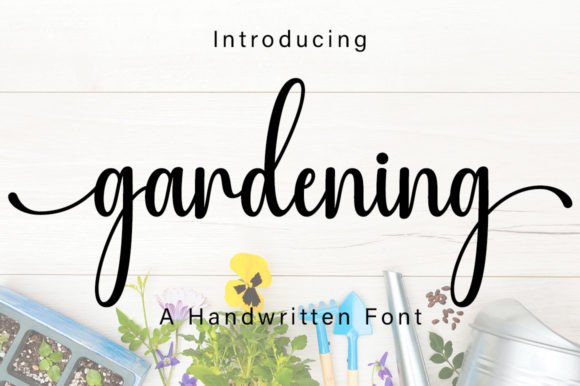
Unleash your creative spirit with Gardening Font, a script typeface that captures the essence of grace and elegance. Its delicate strokes, reminiscent of a calligrapher's pen, weave a tapestry of beauty, inviting you to embark on a whimsical journey through the world of typography.
Immerse yourself in the enchanting realm of handwritten artistry as Gardening Font takes you on a voyage of self-expression. Its timeless style transcends trends, ensuring your designs remain captivating and alluring for years to come. With Gardening Font, you hold the key to unlocking a world of creative possibilities.
Picture your words adorned with the whimsical charm of Gardening Font, as they dance across the page like a gentle breeze rustling through leaves. Its flowing lines emulate the movement of a dancer, adding a touch of dynamism to your designs. Let your imagination flourish as you explore the endless possibilities that await.
Gardning Font's versatility knows no bounds, effortlessly adapting to various design projects. Whether you're crafting logos, branding materials, invitations, or social media graphics, this font will serve as your trusty companion, transforming your ideas into stunning realities. Its PUA encoding makes accessing glyphs and ligatures a seamless experience, allowing you to unleash your creativity without limitations.
Step into a world where beauty and elegance reign supreme. Gardening Font beckons you to embrace its enchanting allure, to let your imagination blossom and your designs shine. With its delicate strokes and captivating charm, this font will elevate your projects to new heights, leaving a lasting impression on all who encounter them.
Don't resist the allure of Gardening Font. Embrace its timeless beauty and make your designs sing.